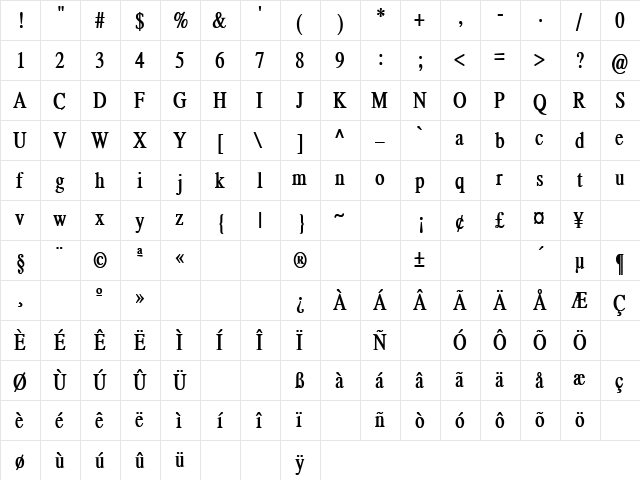
Walkin' The Dog 2 Bold Font Preview
Walkin' The Dog 2 Bold
Design Context for Walkin' The Dog 2 Typeface
Walkin' The Dog 2 offers clean, dependable letterforms without strong stylistic allegiance, making it a practical choice for designers who need flexibility. The heavy weight commands attention and anchors typographic hierarchies.